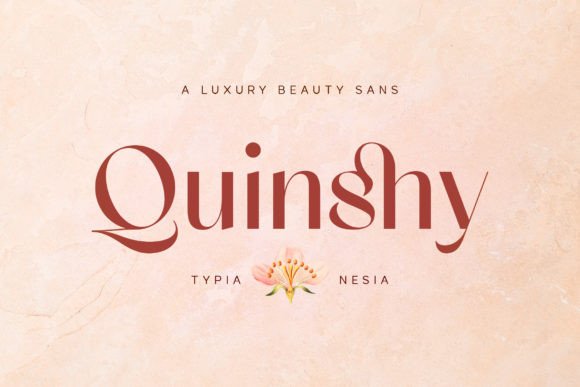
Introducing Quinshy Font - the perfect choice for those seeking a font that embodies modern beauty, elegance, and an aesthetic appeal. Created by Typia Nesia, this sans serif font is specifically designed to enhance your Instagram bios and captivate your audience with its expressive, romantic, and feminine qualities.
Quinshy Font offers more than just a stylish appearance. With its range of alternates and ligatures, you have the freedom to combine different elements and create the perfect typography design that truly represents your brand's identity.
Imagine the impact Quinshy Font can have on your luxury logo and branding projects. With its classy editorial design, it effortlessly adds a touch of sophistication and refinement. Your woman's magazine will come to life with its captivating and alluring presence.
Cosmetic brands can elevate their image with Quinshy Font, as it exudes both glamour and elegance. Fashion promotions will be enhanced by its modern and trendy aesthetic.
Art galleries and museums can utilize this font for their branding purposes, as it evokes a sense of creativity and uniqueness. It is perfect for boutique branding, adding a touch of exclusivity and style.
Quinshy Font is not limited to digital platforms; it is versatile enough to be used in stationery design, blog layouts, and modern advertising campaigns. Its versatility allows it to seamlessly adapt to various mediums and design projects.
Hosting a special event? Quinshy Font can create stunning card invitations that will leave a lasting impression on your guests. Art quotes and home decor will be elevated with its elegant and artistic appeal.
Book and cover titles will come alive with Quinshy Font, making them visually captivating and enticing to readers.
In summary, Quinshy Font is the epitome of modern beauty, elegance, and sophistication. Its expressive and romantic qualities make it the perfect choice for Instagram bios, luxury logos, cosmetic brands, fashion promotions, and so much more. With its range of alternates and ligatures, your creative possibilities are endless. Elevate your design projects and captivate your audience with Quinshy Font.